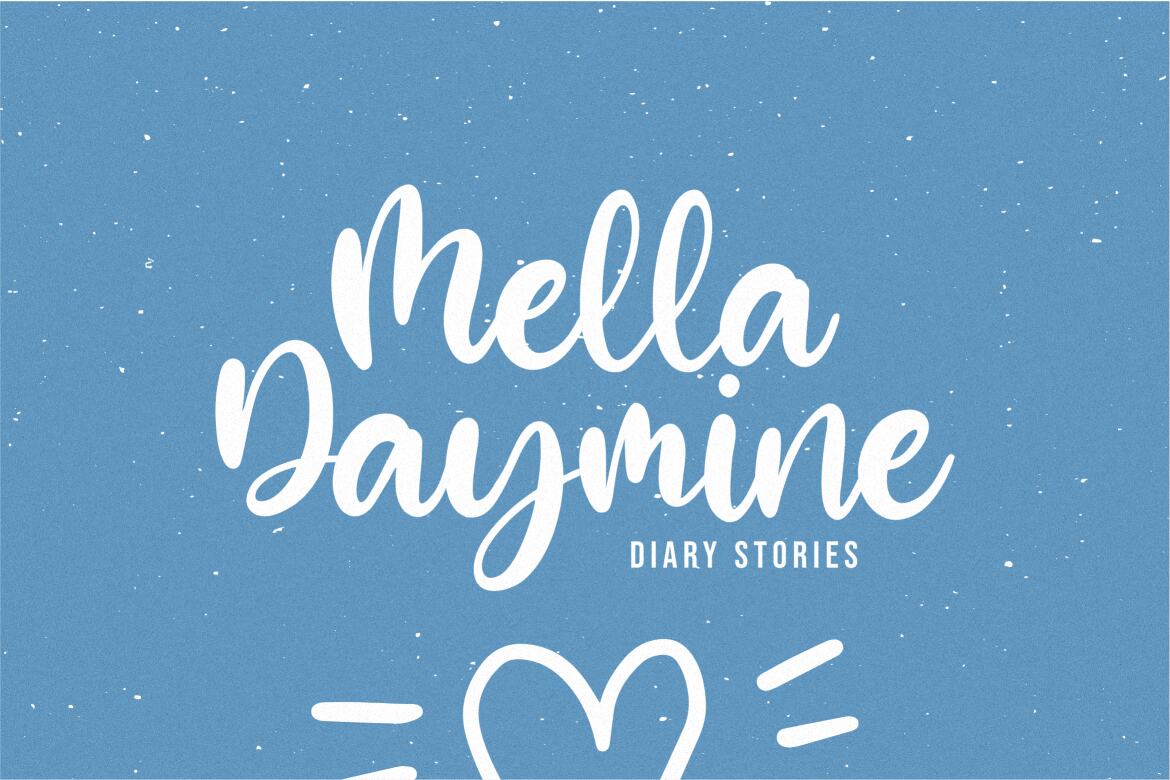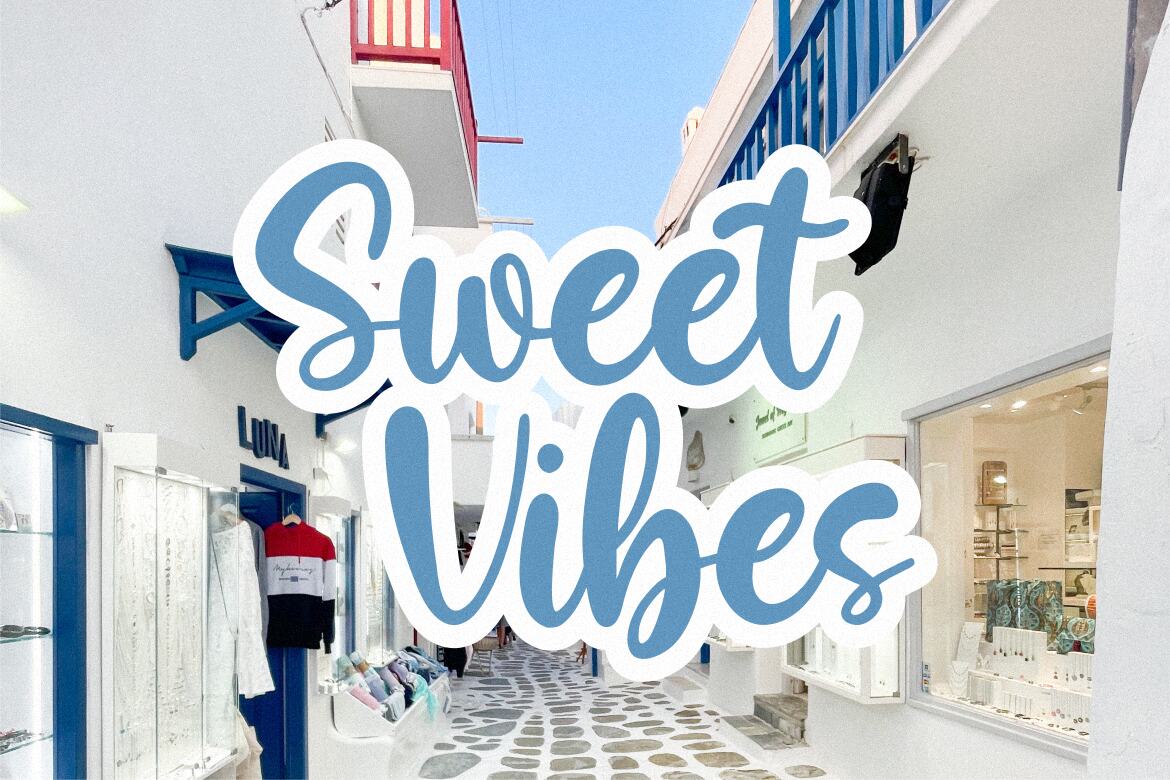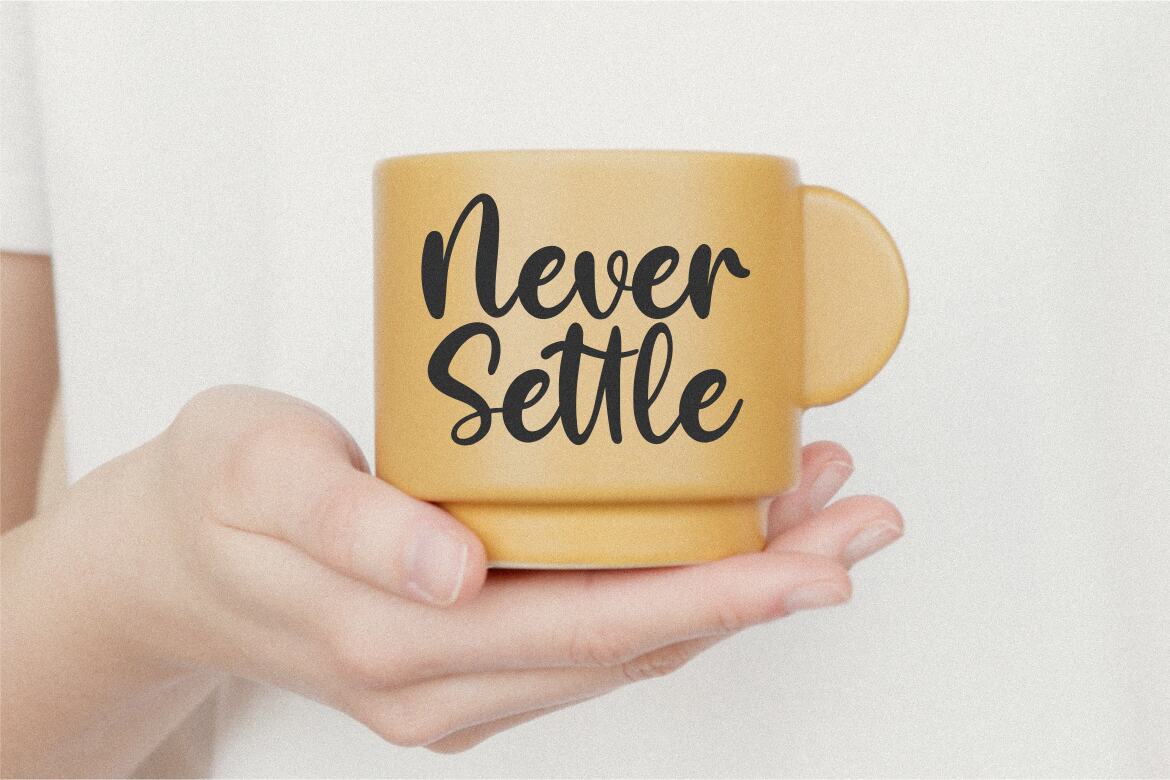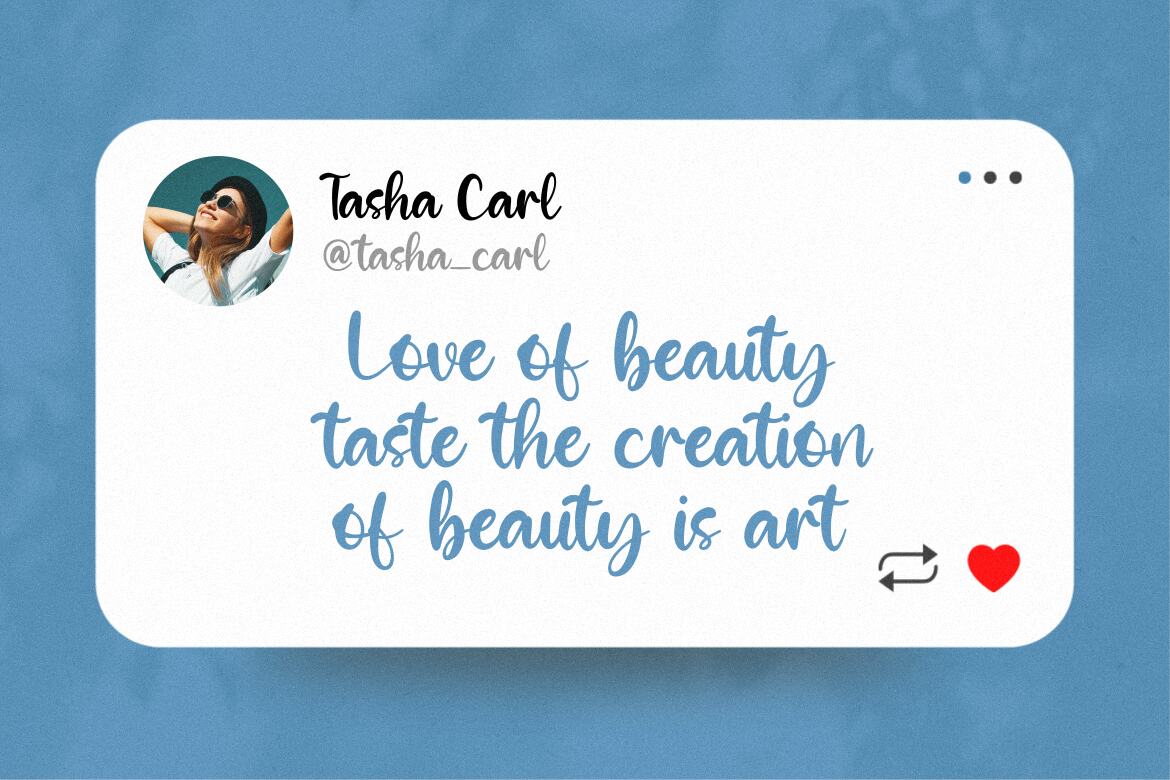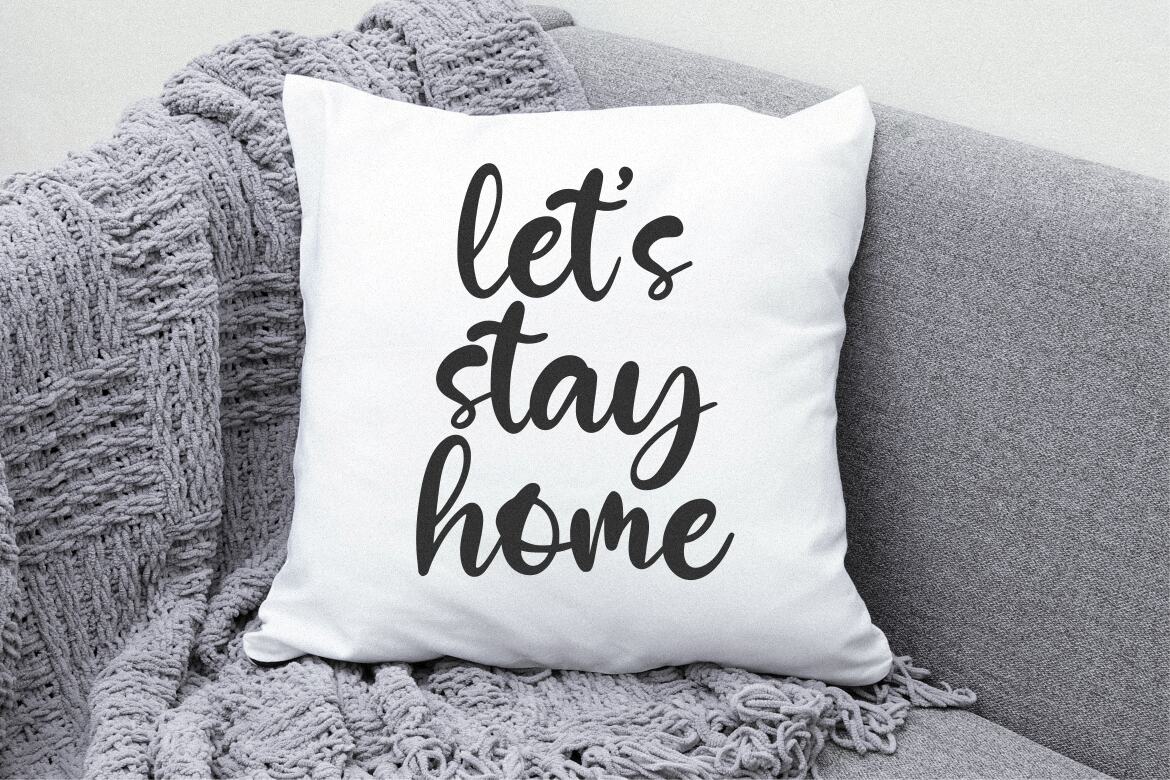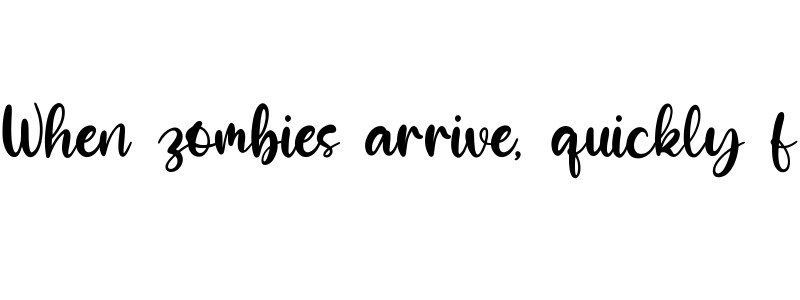
Blue Elfira FREE Font
Blue Elfira
Proudly Present, Blue Elfira
Blue Elfira is a Beauty Handwritten Font
Blue Elfirais perfect for product packaging, branding project, megazine, social media, wedding, or just used to express words above the background.